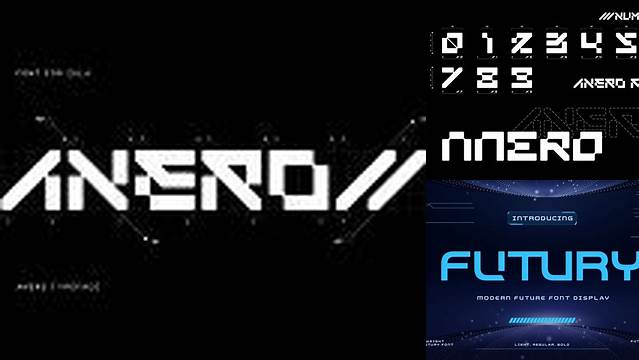
Anero Futuristic Display Font: Free Download & Unleash Your Designs
Hey guys! Are you ready to take your designs to the next level? If you're on the hunt for a font that screams 'future,' then you've come to the right place. Today, we're diving headfirst into the awesomeness of the Anero Futuristic Display Font, and the best part? You can get it with a free download! Prepare to explore its unique characteristics, discover its versatility, and learn how to incorporate it into your projects to achieve stunning results. Get ready, because your designs are about to get a serious upgrade.
Exploring the Allure of Anero Futuristic Display Font
Let's face it, finding the right font can make or break your design. It's the silent communicator, setting the tone and conveying your message before a single word is read. The Anero Futuristic Display Font has been meticulously crafted to capture the essence of the future, and what makes this font so special? The design boasts sharp lines, geometric shapes, and a distinctly technological feel. It’s a font that embodies innovation, progress, and a touch of the unknown. Anero is a display font, meaning it’s best used for headings, titles, and short bursts of text where impact is key. It’s not designed for body copy, but in the right context, it can make your message pop. It’s a font that’s perfect for projects that require a modern, edgy, and forward-thinking aesthetic. Imagine using it for sci-fi movie posters, gaming logos, tech company branding, or even modern art installations. The possibilities are endless. The design of Anero is all about clean lines and bold statements. The characters are carefully constructed with a blend of straight edges and subtle curves, creating a visual rhythm that’s both dynamic and easy on the eyes. It evokes a sense of sleekness and sophistication. This font isn't just about aesthetics; it's about creating an experience. It’s about transporting your audience to a world of possibilities, where the boundaries of design are constantly being pushed. It’s about making a statement and leaving a lasting impression. Whether you're a seasoned designer or just starting out, Anero is a valuable addition to your font library. It’s a tool that allows you to explore your creativity and bring your visions to life. This is your chance to stand out from the crowd and showcase your innovative spirit. This font isn't just about looking good; it's about expressing yourself, your brand, and your vision in a way that is both memorable and effective. This font is all about the future and the exciting potential it holds. So, are you ready to embrace it?
Unleashing Creativity: Uses of Anero Futuristic Display Font
Alright, now for the fun part! Let's brainstorm some cool ways you can use the Anero Futuristic Display Font to inject some serious style into your projects. From websites to social media, the possibilities are practically limitless. It's time to let your imagination run wild! The font is an excellent choice for website headers and titles. Its bold, futuristic aesthetic instantly grabs attention. It lets visitors know they're in for a modern, cutting-edge experience. Consider using it for your website's logo or branding elements. If you're working on a sci-fi or tech-themed blog, the Anero Futuristic Display Font can be a perfect match. Use it for the blog's header, title, and subheadings. It'll help create a cohesive and visually appealing design. The font is also ideal for social media graphics. Whether you're creating posts for Instagram, Facebook, or Twitter, the font will help you stand out. Use it for eye-catching quotes, promotional messages, or event announcements. If you're designing a futuristic game, the font will be your best friend. The font will create a feeling of immersion that will keep your audience engaged. It can be used for game titles, menus, and in-game text elements. It’s perfect for creating movie posters, book covers, or album art. The font's striking look will make your projects look professional and unique. If you're a business owner, consider using the font for your company logo, business cards, or promotional materials. The font will help your brand stand out and create a strong visual identity. The font's versatility makes it perfect for various projects. Just make sure you're following the usage license agreement.
Design Inspiration: Where to Use Anero Font
Let's dive into some specific examples and design inspirations for using the Anero Futuristic Display Font. It's time to get those creative juices flowing! Start with website design. Imagine designing a website for a tech company that specializes in artificial intelligence. The font's futuristic vibe fits perfectly with the subject. You could use the font for the website's logo, navigation, and headlines. The font will help the website stand out and communicate its message in a clear and visually appealing way. Now consider using the font for a video game title. The font's bold and modern look complements the game's theme. The font's clean lines and geometric shapes create a sense of excitement and anticipation. The font could be used for the game's title, in-game text, and promotional materials. Think about using the font for a movie poster. Imagine designing a poster for a sci-fi movie about space exploration. The font's futuristic style creates a sense of wonder and adventure. The font is suitable for movie titles, credits, and promotional text. It will capture viewers' attention and convey the movie's themes and atmosphere. Don't forget about graphic design! The font can also be used in many graphic design projects. Let's say you're designing a logo for a futuristic event. The font's modern and edgy look complements the event's theme. The font can be used in the logo, event posters, and promotional materials. The font's distinctive style creates a memorable brand identity. The font is a valuable asset in any designer's toolkit. By exploring its possibilities and experimenting with different design concepts, you can create visually stunning projects that will grab attention and leave a lasting impression.
Pairing Anero Font: Complementary Fonts
To take your designs to the next level, it's essential to know how to pair the Anero Futuristic Display Font with other fonts. The right combination will create a cohesive and visually appealing design. Think of it like choosing outfits; the right pairing will enhance your overall look. So, how do you do it? First, consider the contrast. You want to choose a font that complements the Anero Futuristic Display Font without competing with it. You could pair the font with a clean and simple sans-serif font. This combination offers a contrast in style. The sans-serif font provides a clean and neutral base, while the Anero Futuristic Display Font adds a touch of futurism. This is an excellent option for headings and body text. Next, consider the font's personality. You can pair the Anero Futuristic Display Font with a more classic or elegant font. This combination creates a unique blend of styles. Think of pairing the font with a serif font for the body text. This will offer a sense of sophistication. This option is perfect for projects where you want to create a sophisticated vibe. Think about the weight and size of the fonts. The font is bold and attention-grabbing. Consider using a lighter-weight font for the body text. This will ensure that the body text is easy to read. Use different sizes and weights to create a visual hierarchy in your design. Experiment with the fonts! Try different combinations of fonts to see what works best. When you're experimenting, consider the overall mood and tone of your project. Do you want to create a modern, edgy, or elegant look? Try a variety of combinations to see what style best suits your vision. Look for resources online! There are many websites and resources that offer font pairing suggestions. Don't be afraid to experiment with different combinations until you find the perfect match.